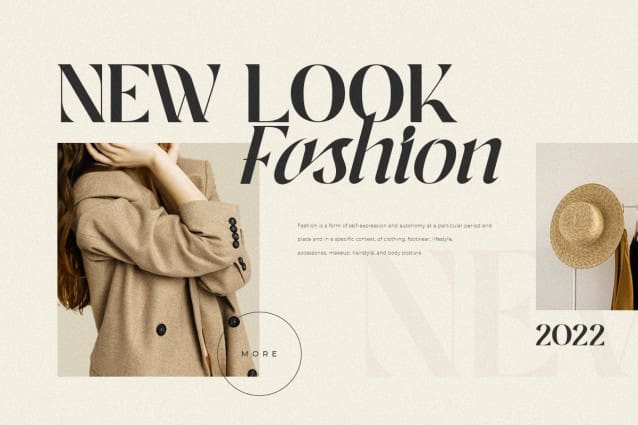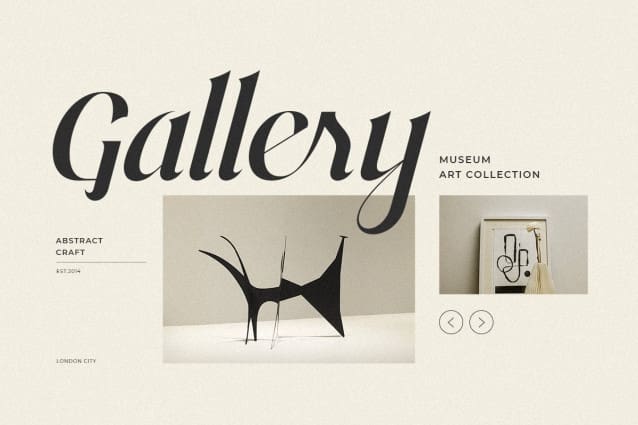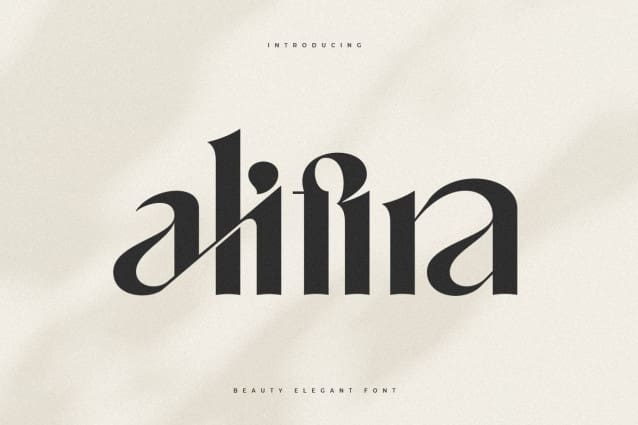
Alifira Font
Alifira Font, A Beauty Elegant font that we created especially for the needs of an elegant brand, with additional uniquely shaped ligatures, will be ready to add value to your brand. It’s so nice to call on a designer or product owner who needs solutions to make their design more sleek and modern. And especially for Alifira font, we have prepared all the unique ligatures and characters to help you create unlimited variations for your creative needs.